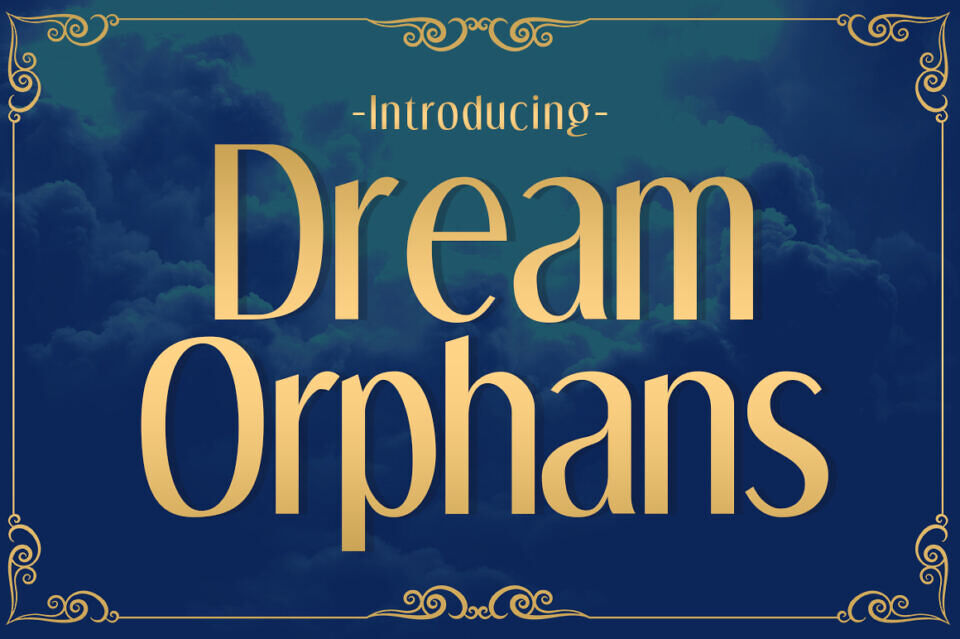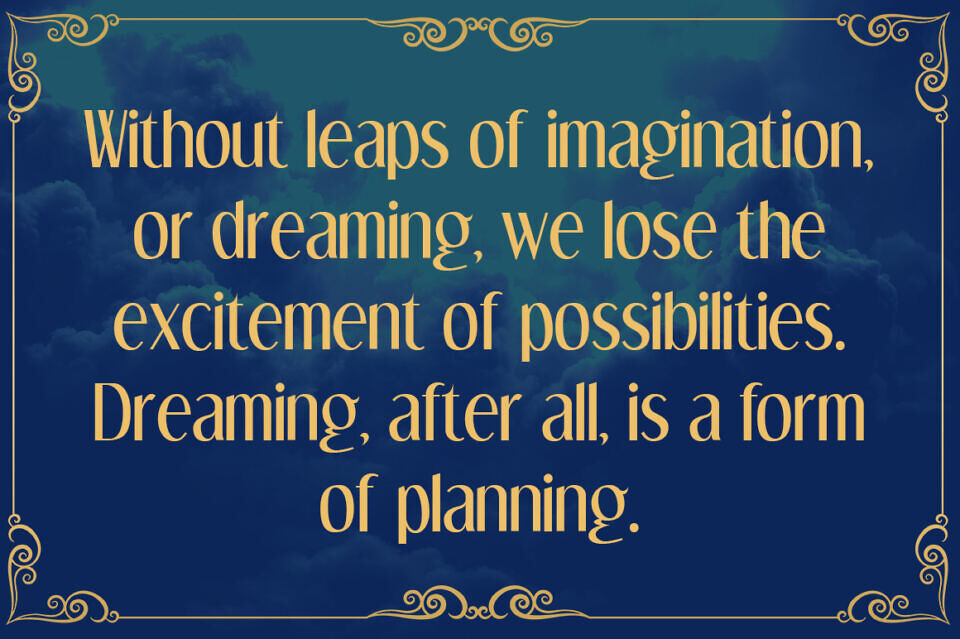
Dream Orphans is a headline typeface with a simple, homey feel. Its tiny cachet and close-fitting spacing make it perfect for titling circumstances where room is limited. OpenType fractions and numeric ordinals, as well as primes and a liter sign, are included in Dream Orphans. Most Latin-based European writing systems are supported. Includes Regular, Italic, Bold, Bold Italic.